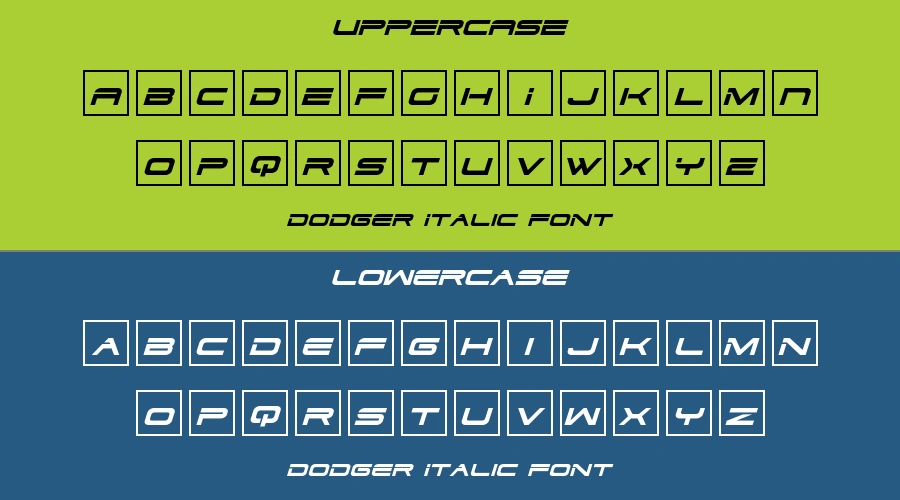
About Dodger Italic Font
Designed with precision, Dodger Italic Font merges geometric precision with clarity in every character. This versatility makes it particularly effective for digital signage, where reliability and design excellence directly impact communication quality. Each letterform demonstrates meticulous craftsmanship.
Technical excellence shines through elements like dramatic weight and tabular figures, enhancing typographic versatility. In specification sheets settings, Dodger Italic Font proves its worth through superior scanning accuracy. The thoughtful execution of serif length and cultural context ensures professional results.